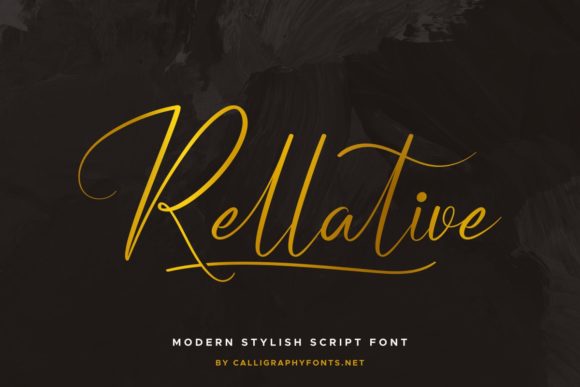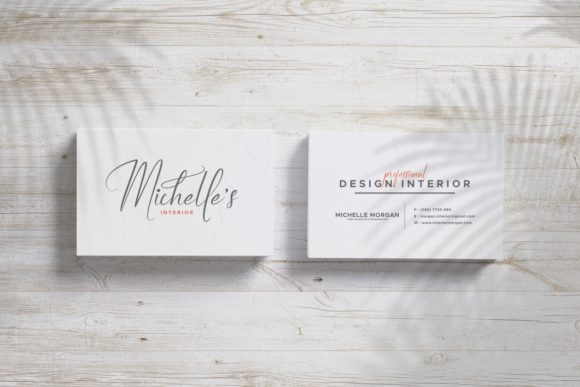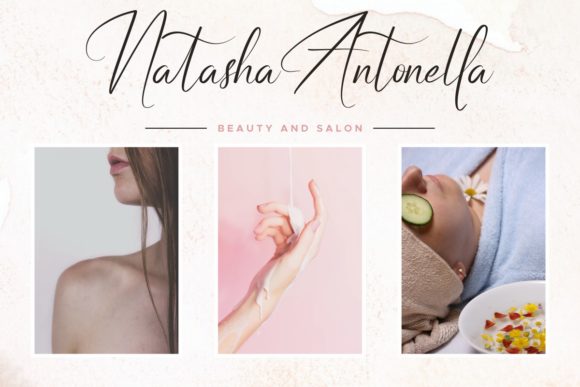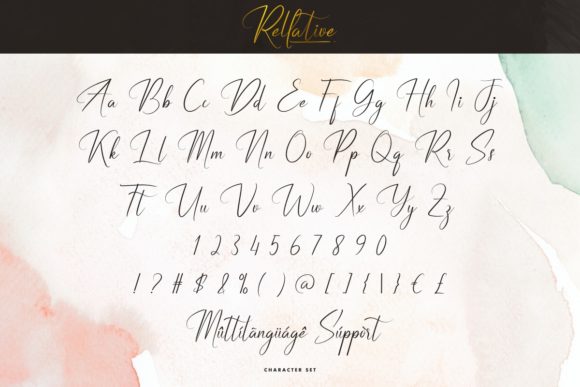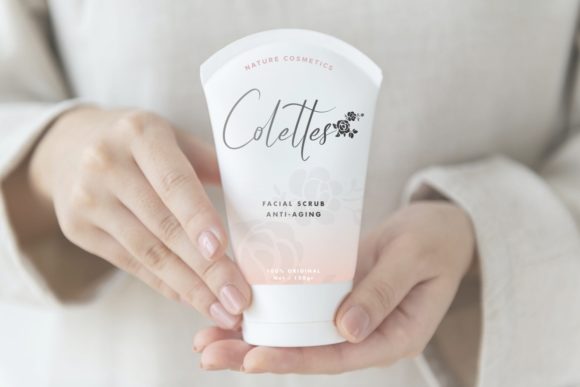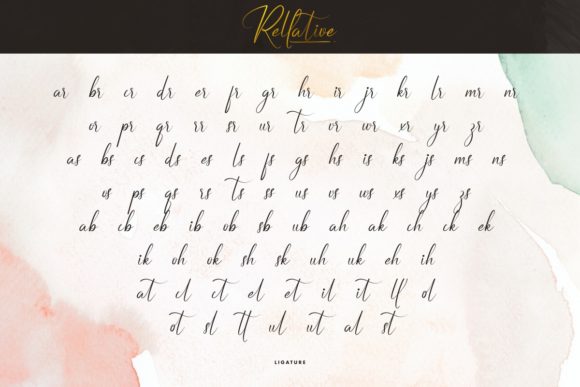
Introduction to Rellative Font Font
Fonts play a crucial role in design, and the Rellative Font font is a typeface that brings both character and versatility to any project. Whether you’re working on a branding project, a website, or a print design, the Rellative Font font offers a unique style that can elevate your work.
| 📌 Font Name | Rellative Font |
| 👤 Author | CalligraphyFonts |
Rellative feels incredibly elegant and flowing.
It looks stunning on wedding invitations, thank you cards, quotes, greeting cards, logos, business cards and every other design which needs a handwritten touch It features a varying baseline, smooth lines, gorgeous glyphs and stunning alternates.
Key Features of Rellative Font Font
Why Choose Rellative Font Font?
The Rellative Font font is more than just a typeface – it’s a design tool that helps you communicate your message with style and clarity. Its unique character set and versatile design make it suitable for a wide range of applications, from elegant invitations to bold headlines.
With its carefully crafted letterforms and balanced proportions, the Rellative Font font ensures readability and visual appeal across all mediums.
What makes Rellative Font font special?
The Rellative Font font stands out with its unique design, exceptional readability, and versatility across various design applications.